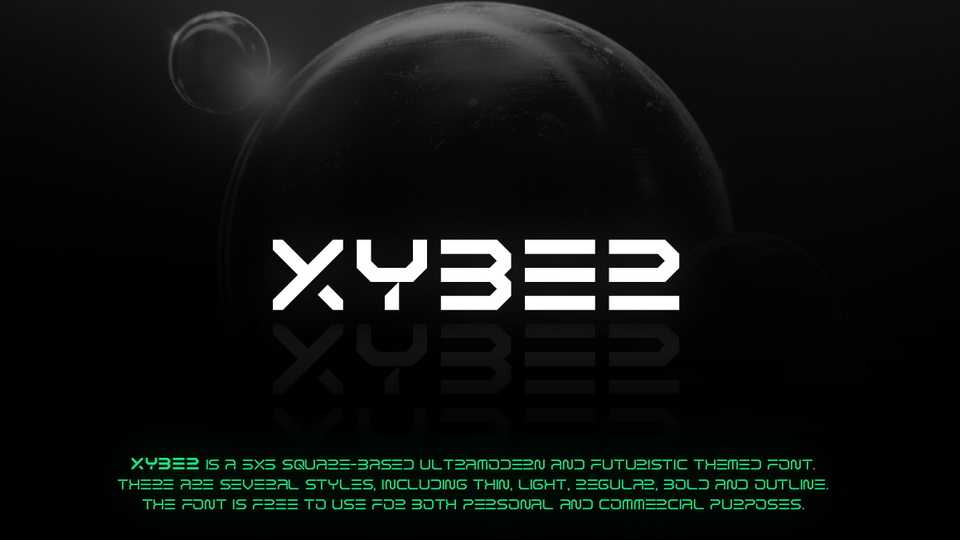
Download XYBER is a 5×5 square-based ultramodern and futuristic themed font. XYBER font is a bold choice for posters, album covers, experimental identity and packaging, games, editorial design, technology, cyberpunk and other futuristic visuals.